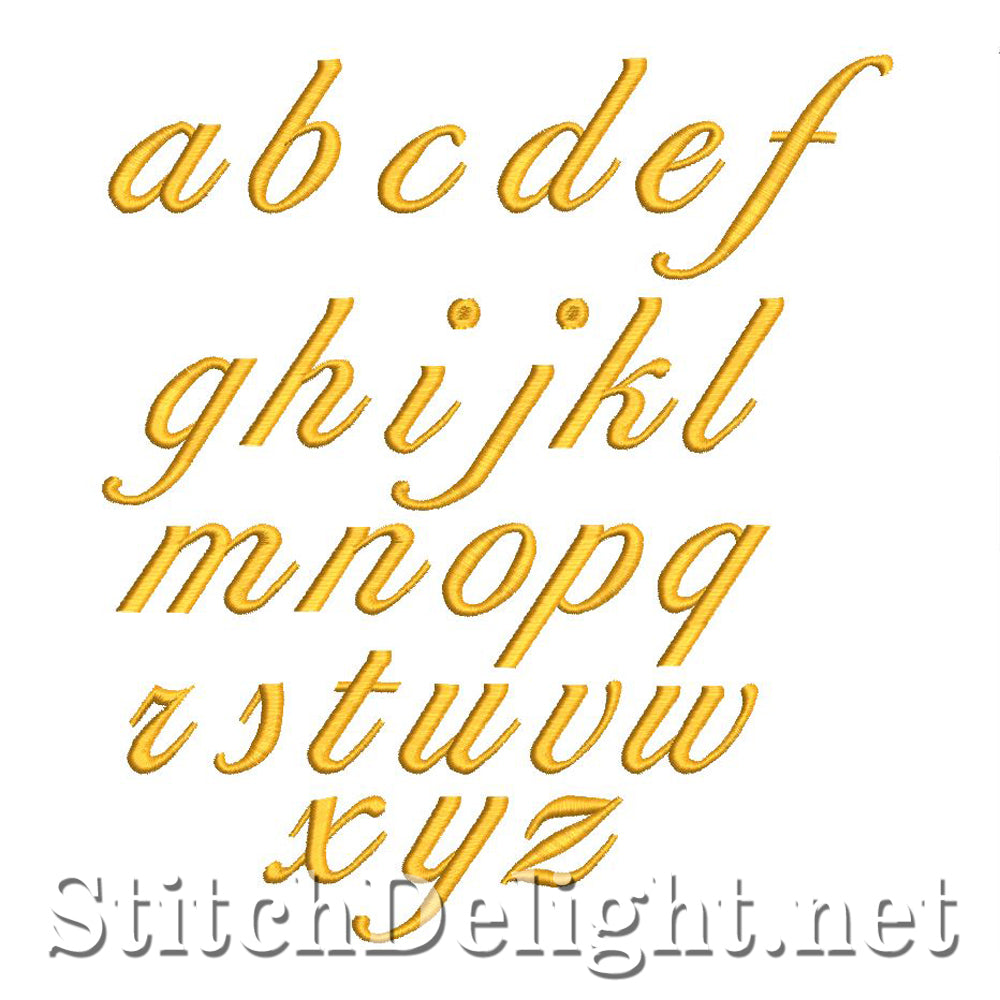
A lovely cursive font standing an average of 0,9inch on the short letters and 1,4inch on the taller letters. This font is made to match perfectly with HOE0001 and HOE0005